There's something so irresistibly fun about a set of perfectly puffy letters. But if you've ever tried stitching a thick bubble font you found online, you might be more familiar with the frustration of puckered fabric and messy, dense stitches. It's a common headache that can make you want to give up on bold lettering altogether. The difference between a standard computer font and a professionally digitized embroidery font is huge, and it's often the source of these stitch-out struggles, turning a fun project into a disappointing mess.
Well, get ready to bring the fun back to your embroidery machine! In this guide, we're diving into the world of playful lettering. We'll show you how to choose high-quality embroidery fonts that stitch out cleanly every single time. You'll discover our expert tips for avoiding common issues like bunching and get a treasure trove of inspiring project ideas perfect for personalizing everything from tote bags to children's clothing. It's time to stop struggling and start creating delightful, professional-looking items with a personality all their own.
## What Makes a Great Bubble Font for Machine Embroidery?
When you see a bubble font, you immediately think of fun, playful, and bold designs. Its rounded, puffy letters are perfect for personalizing kids' clothes, tote bags, and celebratory banners. But translating that charming visual style into flawless embroidery is more complex than just picking a font. The secret lies not in the font's shape, but in how it's prepared for computer-controlled machine embroidery. This process, called digitizing, is what separates a professional, smooth result from a puckered, gappy mess.
The Art of Digitizing: Why It Matters for Bold Fonts
Digitizing is the manual process of converting artwork into a stitch file. For a bold bubble font, a skilled digitizer plans every single stitch to ensure stability and quality. This isn't an automatic conversion; it's a craft that involves:
- **Underlay Stitching:** A hidden mesh of stitches is placed down first. This foundational layer stabilizes the fabric and prevents the dense top stitches from sinking in or puckering the material.
- Stitch Density and Angle: The digitizer carefully sets the angle and density of the top stitches to create a smooth, light-reflecting surface without making the design stiff as a board.
- Pull Compensation: Thread pull can shrink a design as it's stitched, creating gaps between letters or sections. Digitizers add "pull compensation," slightly overlapping objects so they stitch out perfectly aligned.
The classic, shiny finish you love on embroidered letters is typically a satin stitch-a series of parallel stitches that run across the width of the letter. This technique is ideal for bubble letters, creating a seamless and lustrous look. However, if a letter is exceptionally large, a satin stitch can become too long, loose, and prone to snagging. In these cases, a digitizer will use a fill stitch (or tatami stitch) to provide durable coverage. All our fonts are expertly optimized to use beautiful satin stitches at their recommended sizes.
Embroidery Files (PES, DST) vs. Computer Fonts (TTF)
It's a common mistake to think you can use a standard computer font (like a TTF or OTF file) with your embroidery machine. Those files only tell a printer how to draw the outline of a letter. An embroidery file (such as PES, DST, or JEF) is completely different; it contains a precise, stitch-by-stitch map for your machine's needle. Relying on auto-digitizing software to convert a free font often yields poor results, as these programs lack the nuance to properly place underlay, set density, or compensate for pull.
Inspiring Project Ideas for Bubble Font Embroidery
Ready to stitch something amazing? The playful, rounded shapes of a bubble font make it a fantastic choice for adding a personal and joyful touch to almost any fabric item. Because the letters are bold and distinct, your message stands out clearly, making your projects both fun and functional. This emphasis on legibility is a key element, echoing the principles of font design that prioritize readability. Let these ideas spark your creativity for your next embroidery adventure!
Personalizing Kids' Clothing and Gear
Make your little one’s items uniquely theirs! A child’s name stitched in a cheerful font is perfect for personalizing everyday wear and school essentials. The bold lettering ensures their name is easy to spot in a crowded classroom or on the playground. Try using a bright, contrasting thread on a dark sweatshirt for a vibrant pop of color, or go for a tone-on-tone look for a more subtle, stylish effect that still adds texture and personality.
- Custom Apparel: Embroider names or fun nicknames on t-shirts, hoodies, and denim jackets.
- School Essentials: Label backpacks, lunch bags, and library totes with a bold monogram or first name.
- Birthday Outfits: Create a special birthday shirt featuring their new age and name for a memorable celebration.
Creating Unique Home Decor
Bring a touch of whimsy into your home with custom embroidered decor. This style is especially well-suited for children's rooms, playrooms, or craft spaces where you want to foster a fun and inviting atmosphere. It’s an easy way to add a handmade feel to your space. Experiment with chunky yarn or metallic thread to give your letters extra dimension and texture on items like felt pennants and wall hangings.
- Playful Pillows: Stitch words like 'DREAM', 'PLAY', or 'READ' onto throw pillows.
- Custom Banners: Create reusable fabric banners for birthdays, holidays, or seasonal greetings like 'JOY'.
- Organized Storage: Embroider clear labels like 'TOYS' or 'CRAFTS' onto fabric storage bins.
Perfect for Towels, Totes, and Summer Fun
Get ready for sunny days with personalized accessories that truly stand out. A bold bubble font is ideal for thick, textured fabrics like terry cloth towels because the wide satin stitches won't get lost in the pile, ensuring a professional finish. A single, bold initial or a short, punchy phrase can turn a simple item into a stylish statement piece for the beach, pool, or boat. Consider a neon thread on a white towel for maximum impact!
- Family Beach Towels: Monogram a set of beach towels so everyone can easily find theirs on a busy beach.
- Stylish Canvas Totes: Add a fun quote like 'Beach Bound' or 'Sunshine' to a sturdy canvas tote bag.
- Personalized Hats: Stitch a single initial onto the front of a baseball cap or sun hat for a classic, custom look.
How to Stitch Flawless Bubble Letters: Pro Tips & Tricks
The dense, satin stitches of a bubble font can look intimidating, leading to fears of thread breaks, puckered fabric, and bird's nests. But don't worry! Achieving a smooth, professional finish is simpler than you think. By focusing on a few key preparation steps, you can eliminate guesswork and ensure your embroidery machine stitches out those fun, puffy letters perfectly every single time.
Follow these pro tips to transform your projects from homemade to high-end.
Choosing the Right Stabilizer is Key
Stabilizer is the non-negotiable foundation of any successful embroidery project. It prevents the fabric from shifting and puckering under the weight of dense stitches. The right choice depends entirely on your fabric. For expert advice on how to care for your finished embroidery long-term, ensuring its stability and beauty, the Smithsonian Institution provides excellent resources. Start with these basics:
- For Knits (T-shirts, Sweatshirts): Use a medium-weight cut-away stabilizer. It remains with the garment to provide permanent support.
- For Wovens (Canvas, Denim): A crisp tear-away stabilizer is usually sufficient for stable fabrics.
- For Textured Fabrics (Towels, Fleece): Use a water-soluble topping on top of the fabric to prevent stitches from sinking into the pile, along with a cut-away or tear-away on the back.
Needle and Thread Recommendations
Using the right tools for the job makes a world of difference. A dull needle or poor-quality thread is a common cause of stitching issues. For a bold bubble font design, you need a sharp needle to cleanly penetrate the fabric and stabilizer. A size 75/11 sharp embroidery needle is an excellent starting point. Pair it with a high-quality 40 wt polyester or rayon embroidery thread for a vibrant sheen and strong, consistent stitches. Don't forget to use a proper embroidery bobbin thread!
Machine Settings for Success
Your machine settings are the final piece of the puzzle. Before you hit "start," make these three simple checks to guarantee a flawless stitch-out:
- Slow It Down: Dense designs require precision. Reduce your machine's stitching speed to minimize friction, prevent thread breaks, and allow for more accurate needle placement.
- Hoop Correctly: The fabric should be taut like a drum, but not stretched. Overstretching the fabric in the hoop will cause it to pucker and distort once it's released.
- Always Test Stitch: This is the golden rule of embroidery. Stitch your design on a scrap piece of the same fabric with the same stabilizer to spot any potential issues with tension or density before you commit to your final project.
By mastering this simple setup, you'll be ready to tackle any embroidery project with confidence. For more guides and project ideas, explore the resources at embroiderynsewing.com.
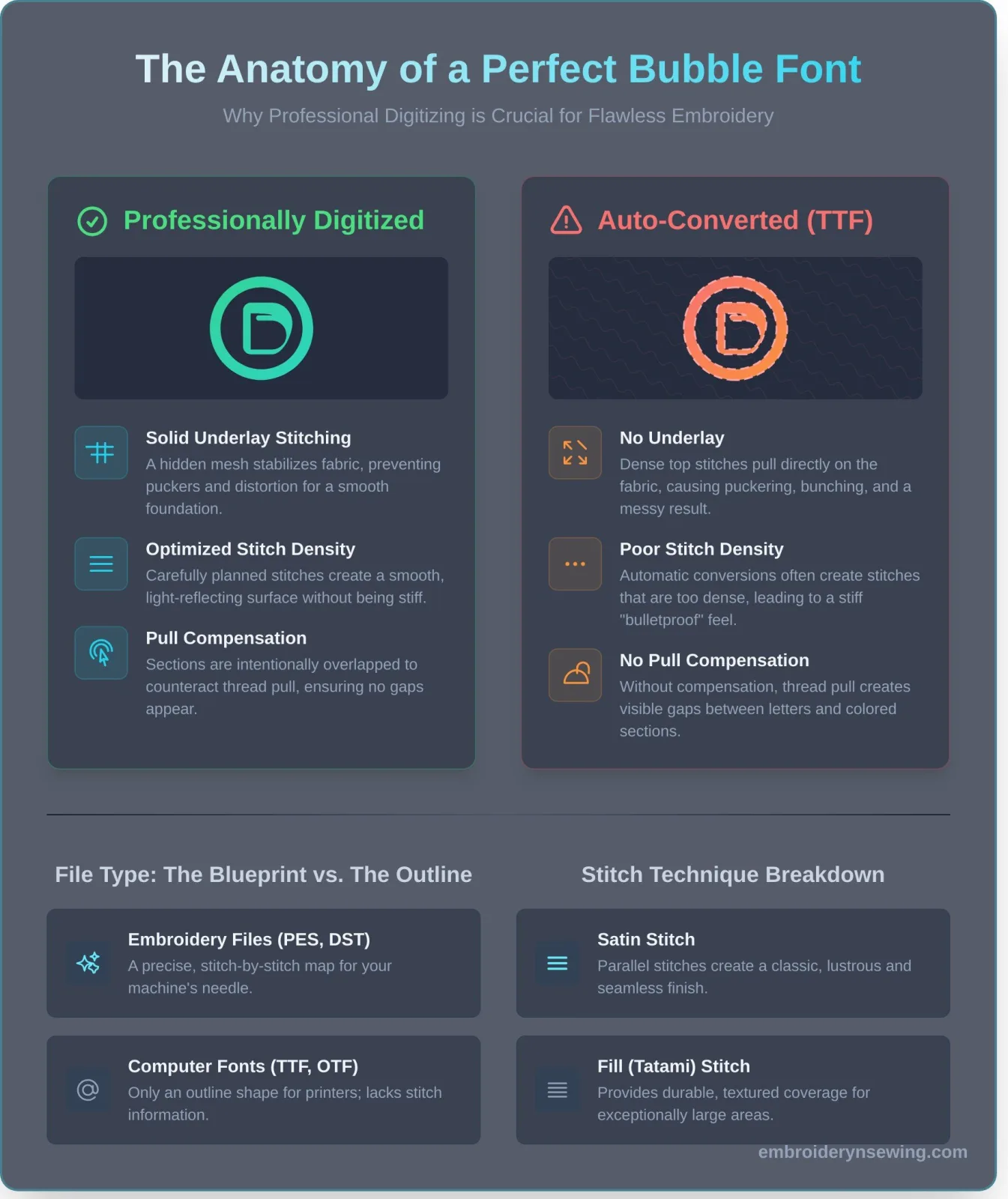
Explore Our Top Bubble Embroidery Font Collections
Now that you have the techniques to create stunning projects, the next step is finding the perfect font to bring your vision to life. The right design can transform a simple item into a cherished keepsake. We've taken the guesswork out of the process by designing a range of high-quality, easy-to-use bubble embroidery fonts, each with its own unique personality and professionally digitized for a flawless stitch-out.
Ready to find your perfect match? Here are a few of our favorites.
The 'Classic Puffy' Font: Fun & Versatile
For a timeless, friendly look, you can’t go wrong with our Classic Puffy font. It features perfectly rounded, soft letters that are the epitome of the classic bubble shape. This font is incredibly versatile, making it an ideal choice for personalizing a child's t-shirt with their name, creating elegant single-letter monograms on towels, or adding a playful touch to any fabric. Shop the Classic Puffy Font Now and start your next classic creation.
The 'Block Party' Font: Bold & Modern
When your project needs to make a statement, the Block Party font delivers. With its chunky, slightly squared-off style, this font commands attention and adds a cool, modern edge. It’s designed to be highly legible and impactful, making it perfect for custom banners, team gear, or personalizing a sturdy canvas tote bag. Its strong aesthetic ensures your message stands out from the crowd. Check out the Block Party Font to give your projects a powerful voice.
The 'Doodle Dots' Font: Whimsical & Cute
Add an extra layer of charm with our Doodle Dots font. This unique design takes the fun of a bubble font and infuses it with even more personality, featuring a playful polka-dot fill detail. It's the perfect choice when you want to create something truly special and eye-catching. Use it to embellish a decorative pillow, a baby blanket, or a quirky kitchen apron for a touch of handmade whimsy. Get the Doodle Dots Font and let your creativity shine.
Choosing the right bubble font is a fun and crucial step in designing a project you'll love. Each of our collections is crafted to save you time and frustration, so you can focus on the joy of creating. Explore these options and more to find the perfect match for your style.
Inflate Your Creativity with Perfect Bubble Lettering
You're now equipped with the inspiration and pro tips to take your embroidery projects to the next level. We've explored what makes a great design, how to achieve a flawless stitch-out, and the endless creative possibilities for personalizing everything from tote bags to hoodies. Remember, a high-quality bubble font is the foundation for a stunning, professional-looking result that truly pops.
Are you ready to start stitching? Dive into a world of whimsical lettering with our expertly crafted collections. Each design is professionally digitized for a flawless stitch-out and available for instant download in all major machine formats. Join thousands of happy customers and see their positive reviews for yourself!
Explore All Playful Embroidery Fonts and bring your most imaginative ideas to life. Happy stitching!
Frequently Asked Questions
What file formats do your embroidery fonts come in?
Our embroidery fonts are provided in all major machine formats to ensure compatibility. Each purchase includes a zipped folder containing PES, DST, JEF, EXP, XXX, HUS, VIP, and VP3 files. This wide range covers popular embroidery machine brands like Brother, Babylock, Janome, Bernina, Singer, and Husqvarna. Simply unzip the folder on your computer and select the file type that matches your specific machine for a seamless transfer and stitch-out experience.
Can I resize your bubble font designs?
We strongly advise against resizing our embroidery font files. Unlike a standard text font, each design is a digitized file where every stitch is precisely placed for a specific size. Altering the size, even slightly, can corrupt the file, leading to distorted stitches, unwanted gaps, and poor-quality results. For the best outcome, please purchase the bubble font in the size that is closest to your project needs to ensure a clean, professional finish.
What's the difference between a font set and individual letter designs?
A font set provides you with the complete alphabet, typically including uppercase letters, lowercase letters, numbers, and common punctuation as separate, individual design files. This gives you the creative freedom to combine the letters to spell any name, word, or monogram you wish. In contrast, an individual letter design is just a single character, such as a standalone monogram "A". A full set is the most versatile option for creating custom text-based projects.
Do I need special software to use your embroidery fonts?
You will need a way to transfer the font files from your computer to your embroidery machine, which is usually done with a USB stick. While not strictly required, embroidery editing software is highly recommended. A program like Embrilliance Express (which is free) allows you to import individual letter files and arrange them to form words or names. This makes it much easier to ensure perfect alignment and spacing before sending the final combined design to your machine.
Are bubble fonts suitable for embroidering on hats?
Absolutely! A bubble font is an excellent choice for hats and caps. Its bold, rounded letters create a high-impact design that stands out well on the structured, curved surface of a hat. For the best results, be sure to use a strong, suitable stabilizer and a dedicated hat hoop to keep the material taut and secure during the stitching process. The clean, simple lines of this font style ensure your design is legible and looks professionally finished.
What's the best way to arrange letters to spell a name before stitching?
The most efficient method is to use embroidery editing software on your computer. You can import each individual letter file needed for the name into the software's design space. From there, you can easily arrange, align, and space the letters perfectly on a digital grid. Once you are happy with the layout, you can save the entire name as a single, combined design file. This saves you from having to re-hoop your project for each letter.